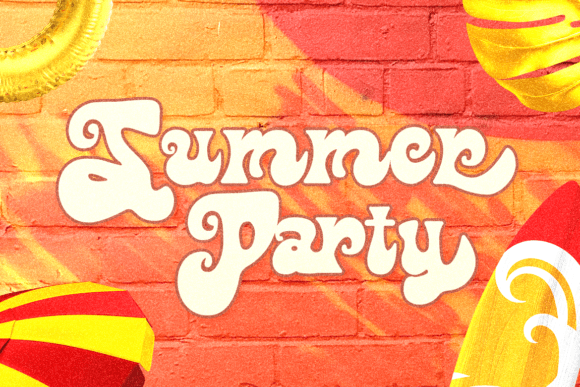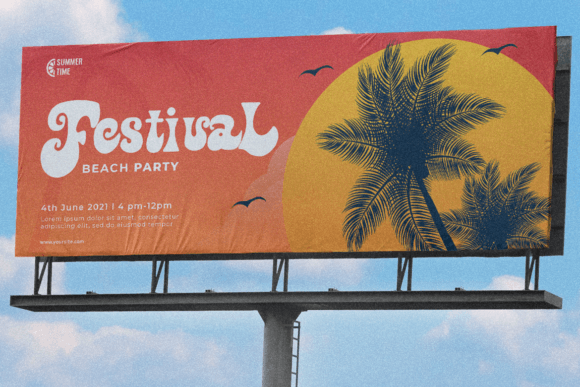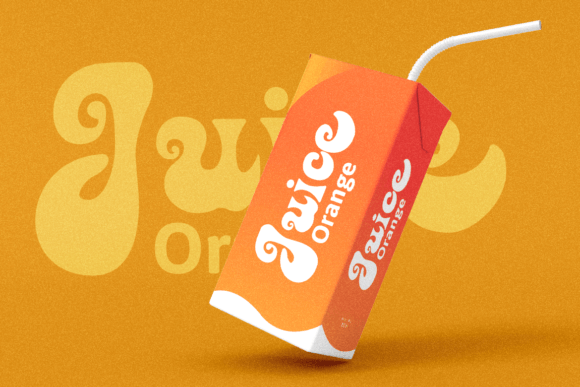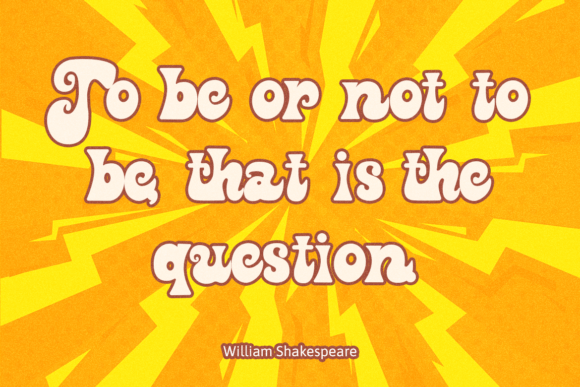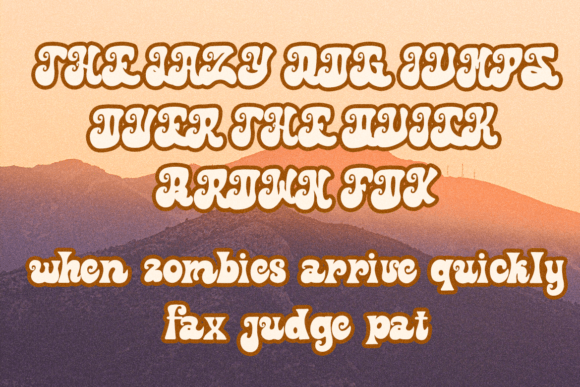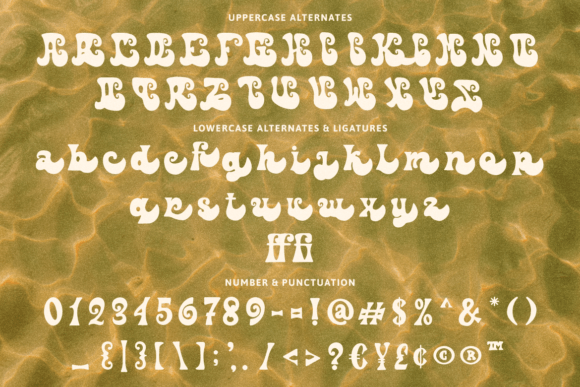
Introduction to Nawacitha Font
Nawacitha is a bold, fun, and vintage typeface never gets old.
With the touch of 80โs looks, it could bring out the fun side of your projects Time to catch your audienceโs attention.
Key Features of Nawacitha Font